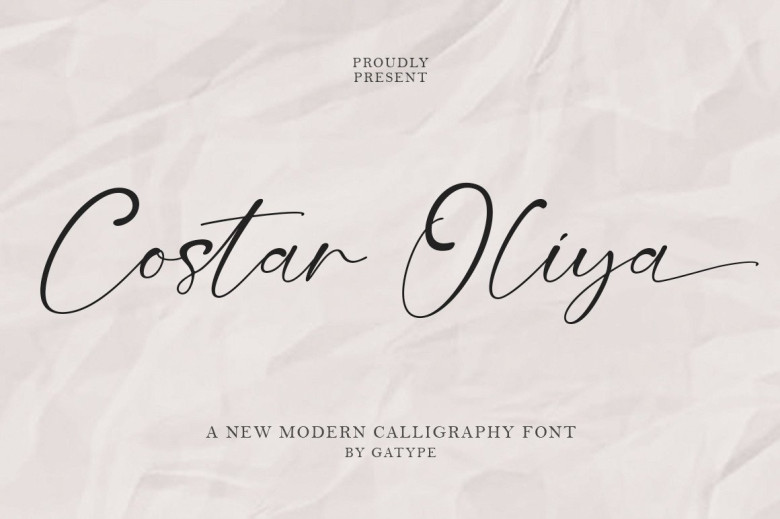
Costar Oliya Font
Costar Oliya is an amusing calligraphy script font featuring amusing characters with touches of binder and other alternative. This font will spark creativity for logos, Social Media posts, movie titles, book titles and short text fonts of any length, short texts with serifs or sans serifs or secondary texts with serif or sans fonts – ideal for use as well.
Costar Oliya Calligraphy Script Font